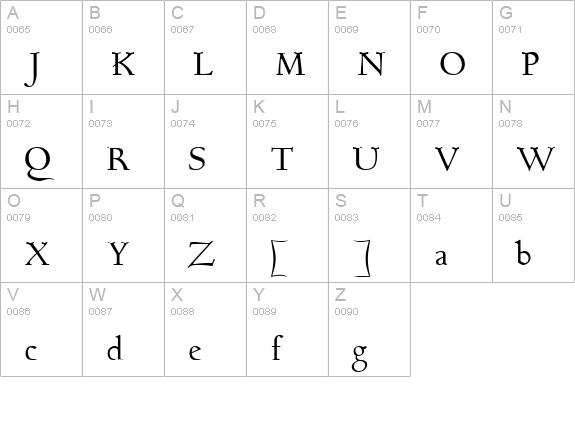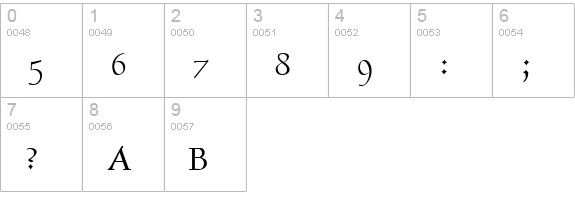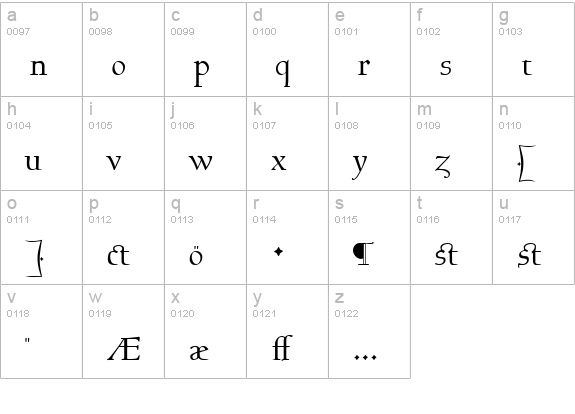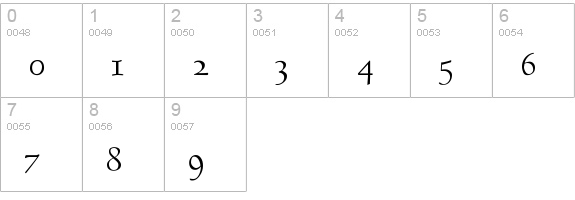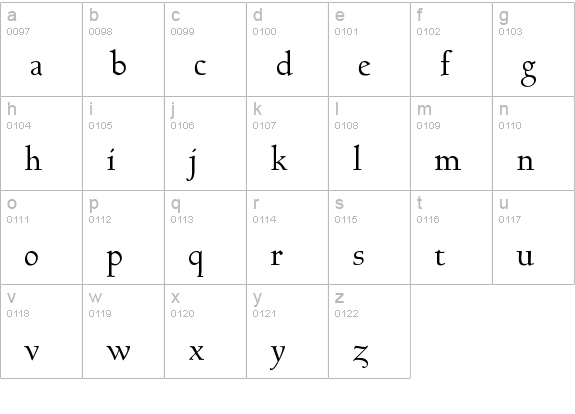
GoudyHundred Font Details
GoudyHundred font is a timeless and elegant typeface that exudes sophistication and class. With its classic serifs and delicate lines, this font is perfect for adding a touch of refinement to any project. Whether you're designing a wedding invitation, a business card, or a logo, GoudyHundred font is sure to make a lasting impression. The best part? GoudyHundred font is completely free to download at FontsMarket.com. That's right, you can access this beautiful font without spending a dime. So why wait? Elevate your designs with the luxurious GoudyHundred font today and watch as your creations come to life with style and grace.